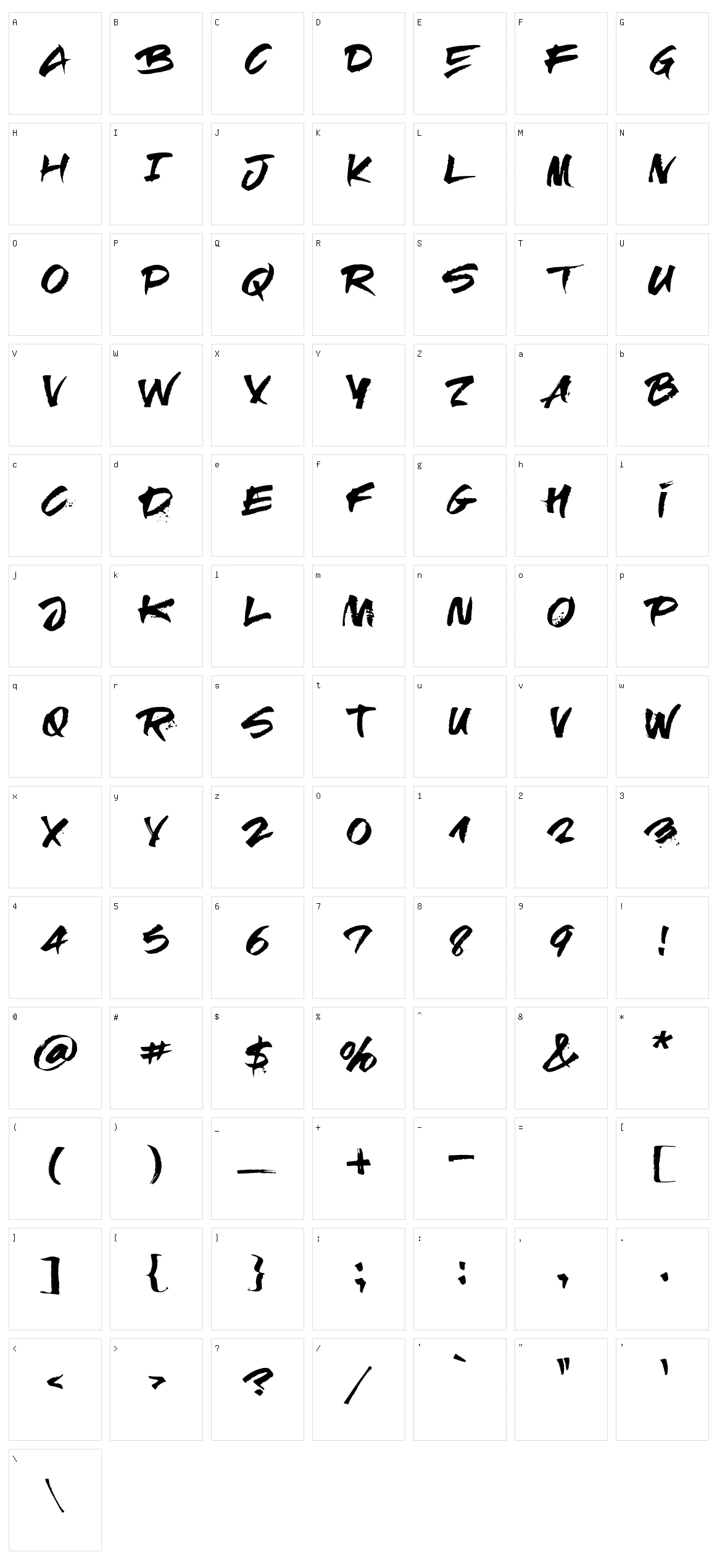
Relapse
Designed by: Roland Huse Design
RELAPSE is a 100% handmade and FREE font both for personal and commercial use, even the tool it's made with is D.I.Y. which is a folded pen made out of soda can.
This font is ALL uppercase characters but the glyphs in place of the lowercase set you find a different version of each letter so you can play around and combine upper and lowercase in order to get the best and more natural result. The character set covers all Western and Eastern European accents and special characters.
There are some ligatures for :
TT FA IJ ST TH TO
and
a stylistic alternate for letter "O" (underlined "O")